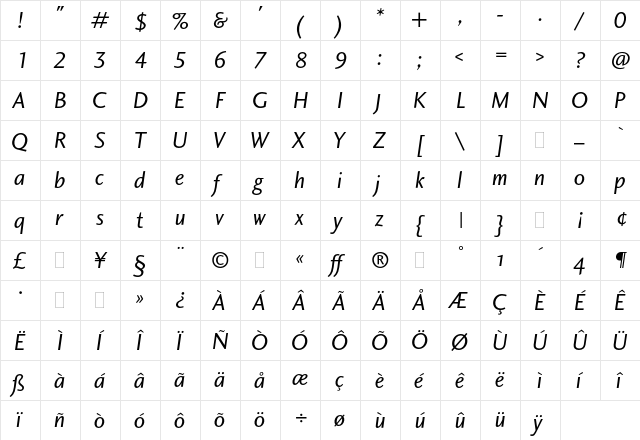
Charlotte Sans Book Italic Plain
Design Context for Charlotte Sans Book Italic Typeface
Charlotte Sans Book Italic takes a measured approach to typography — its balanced proportions and neutral character make it a reliable workhorse for both digital and print work. The slanted form adds forward momentum and visual energy.
Pro Tip: Try Charlotte Sans Book Italic for annotation and caption copy alongside an upright companion — the contrast in angle creates a dynamic but ordered typographic system.